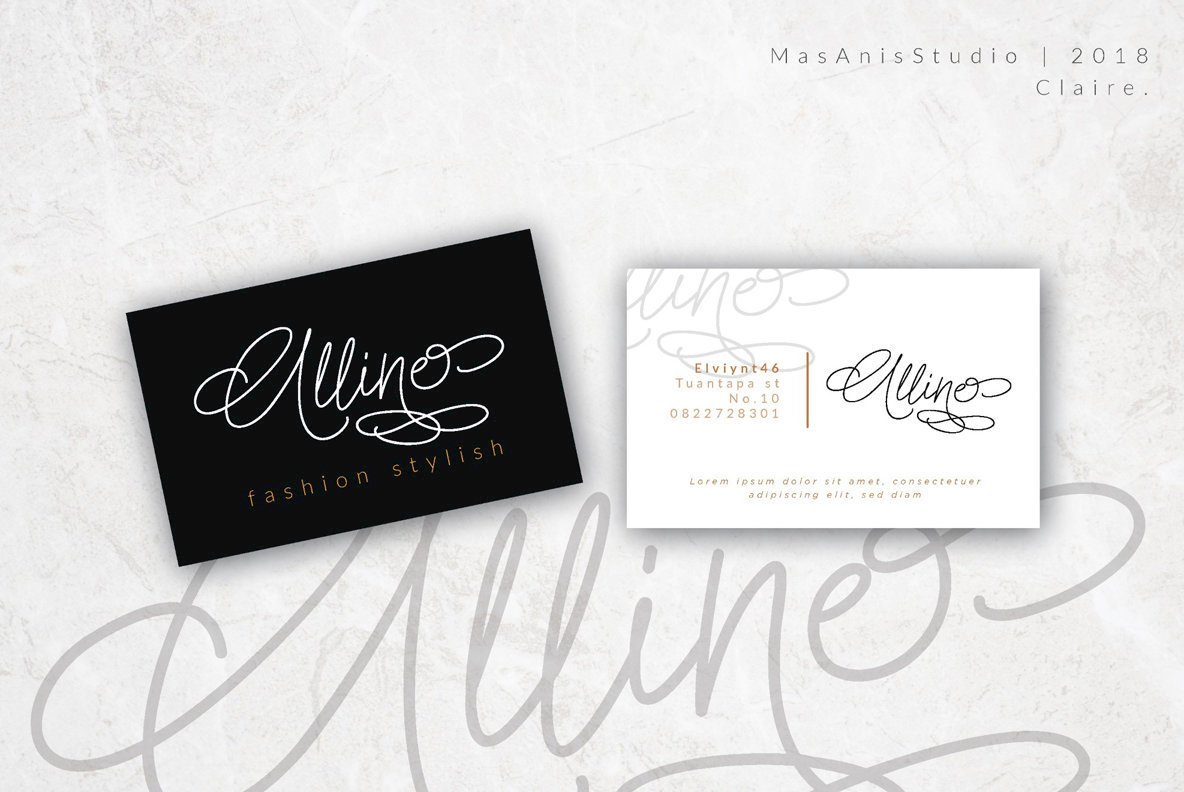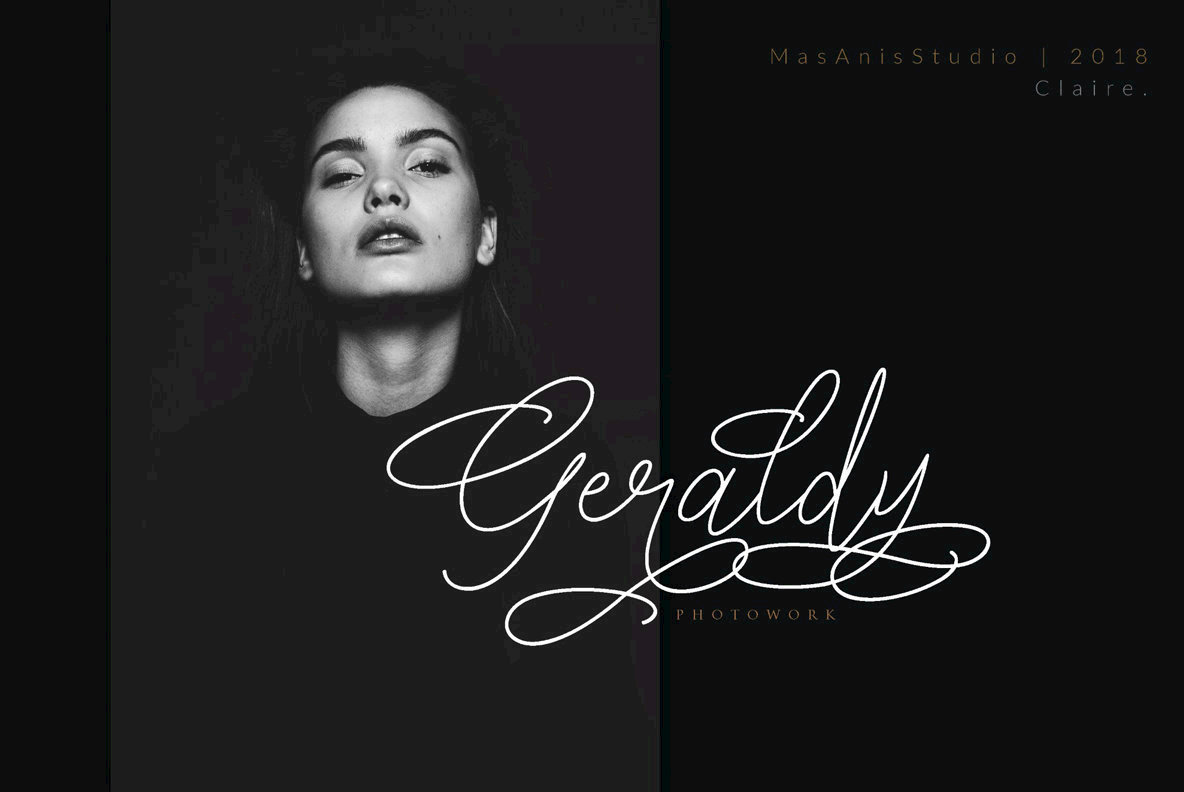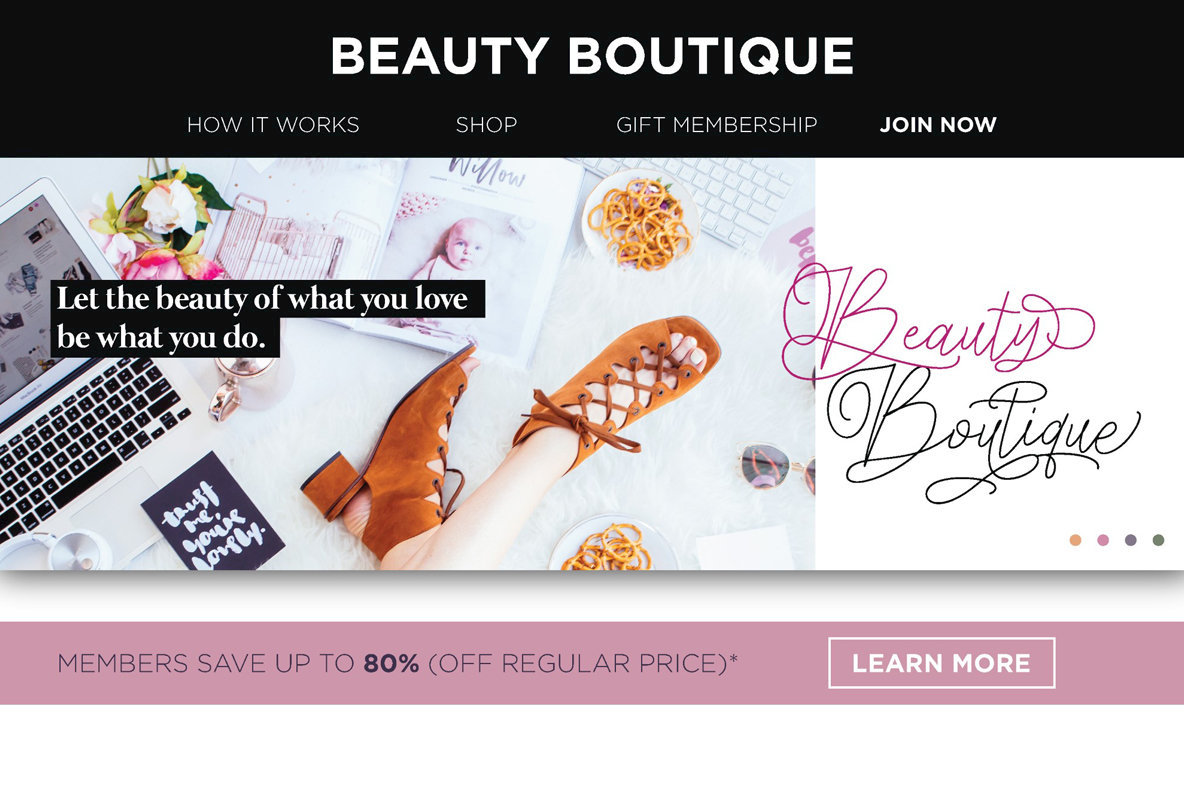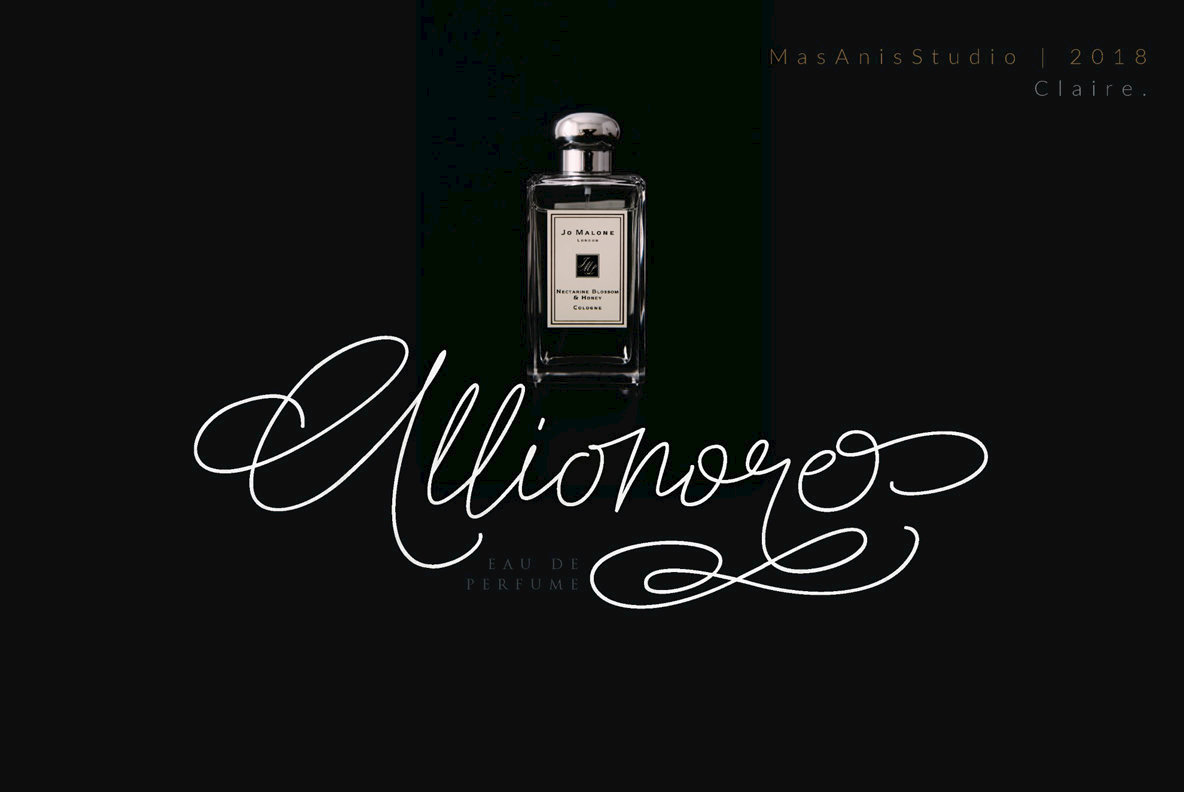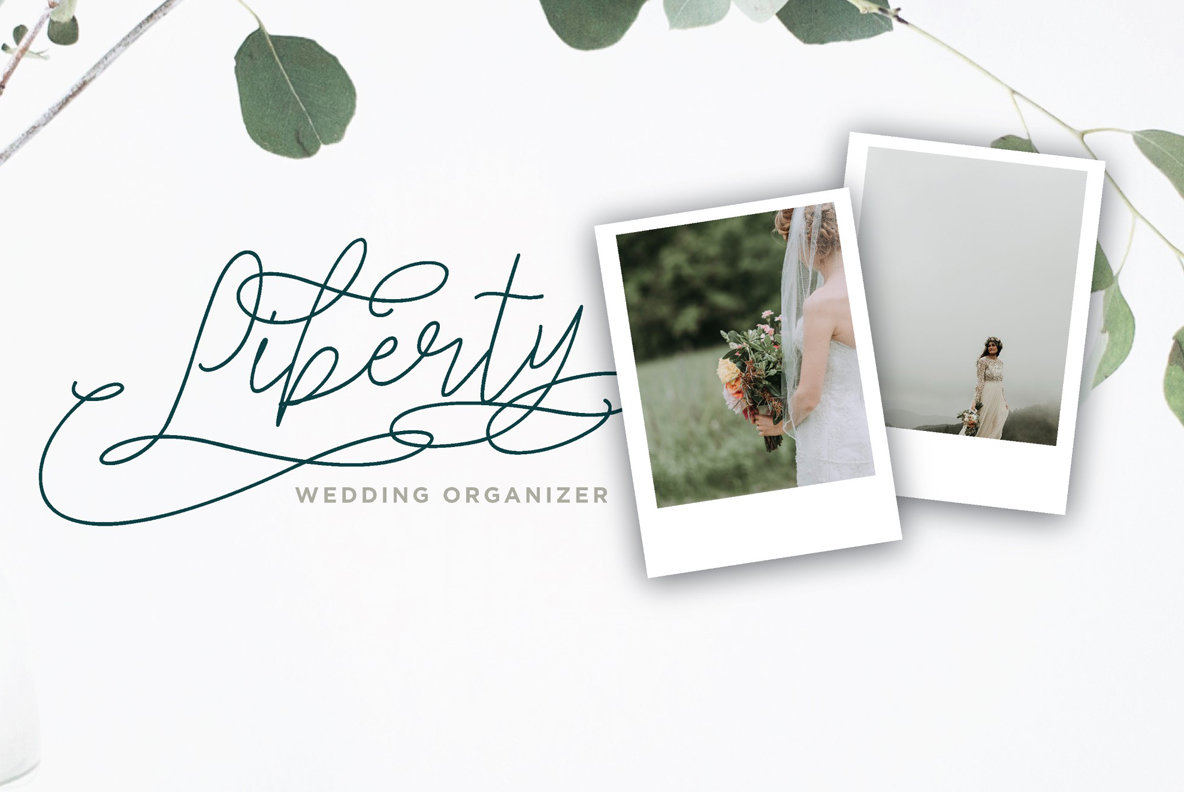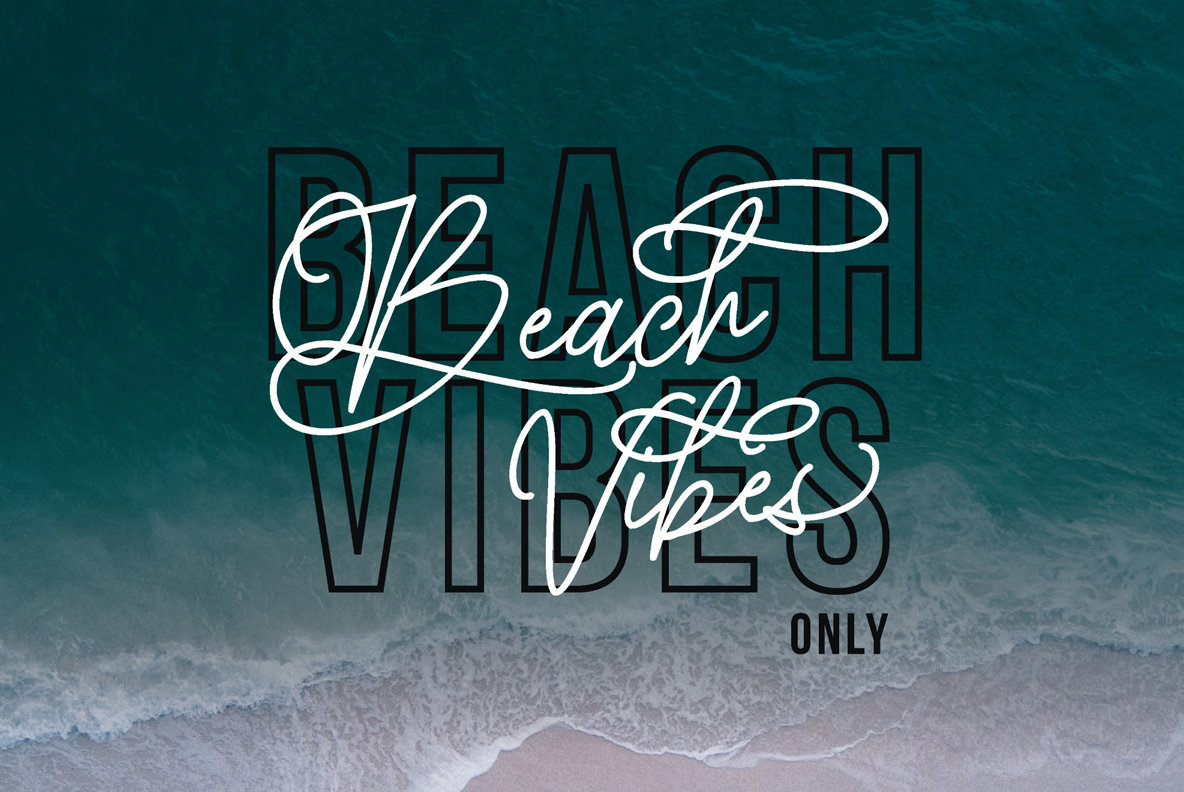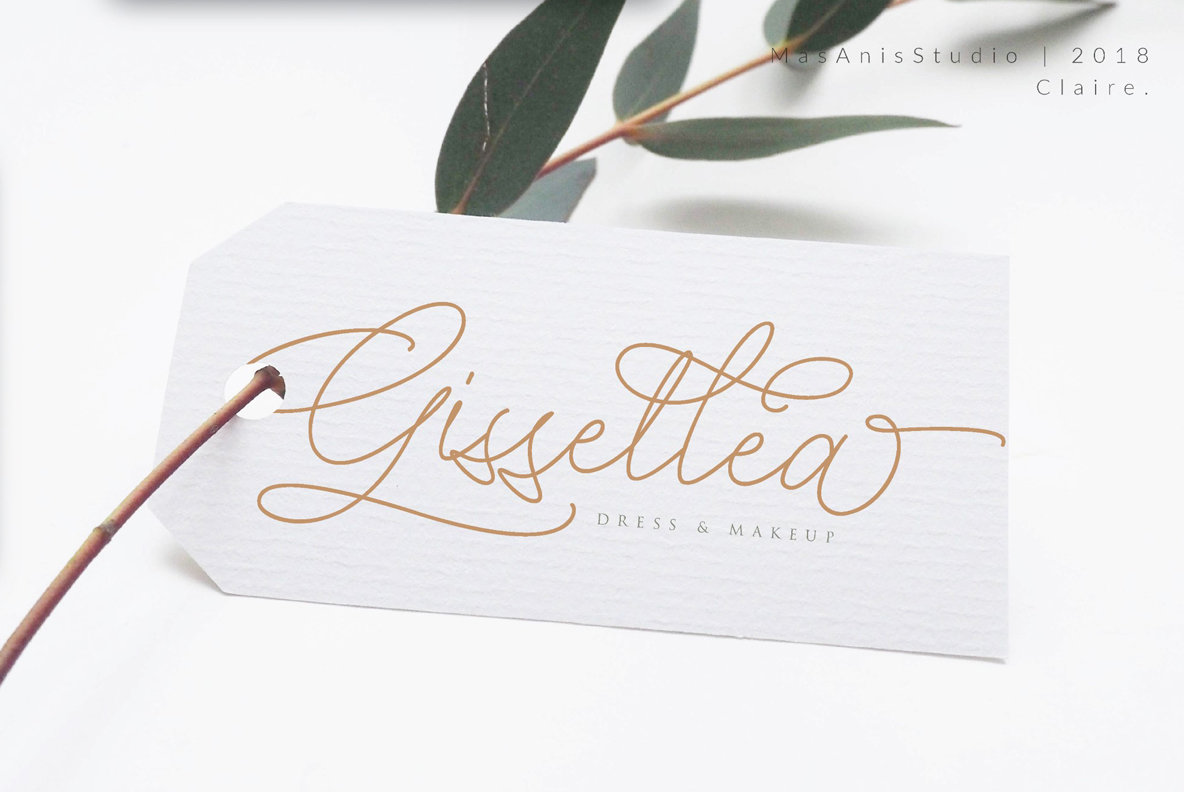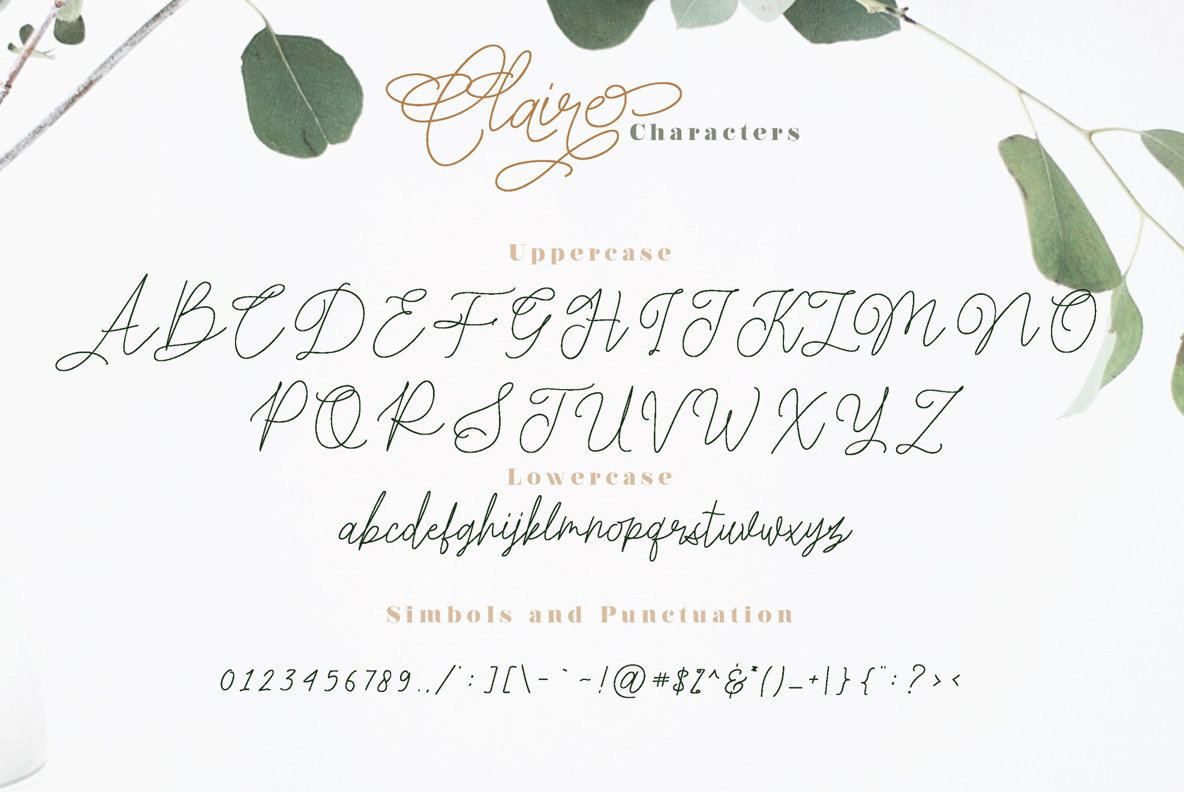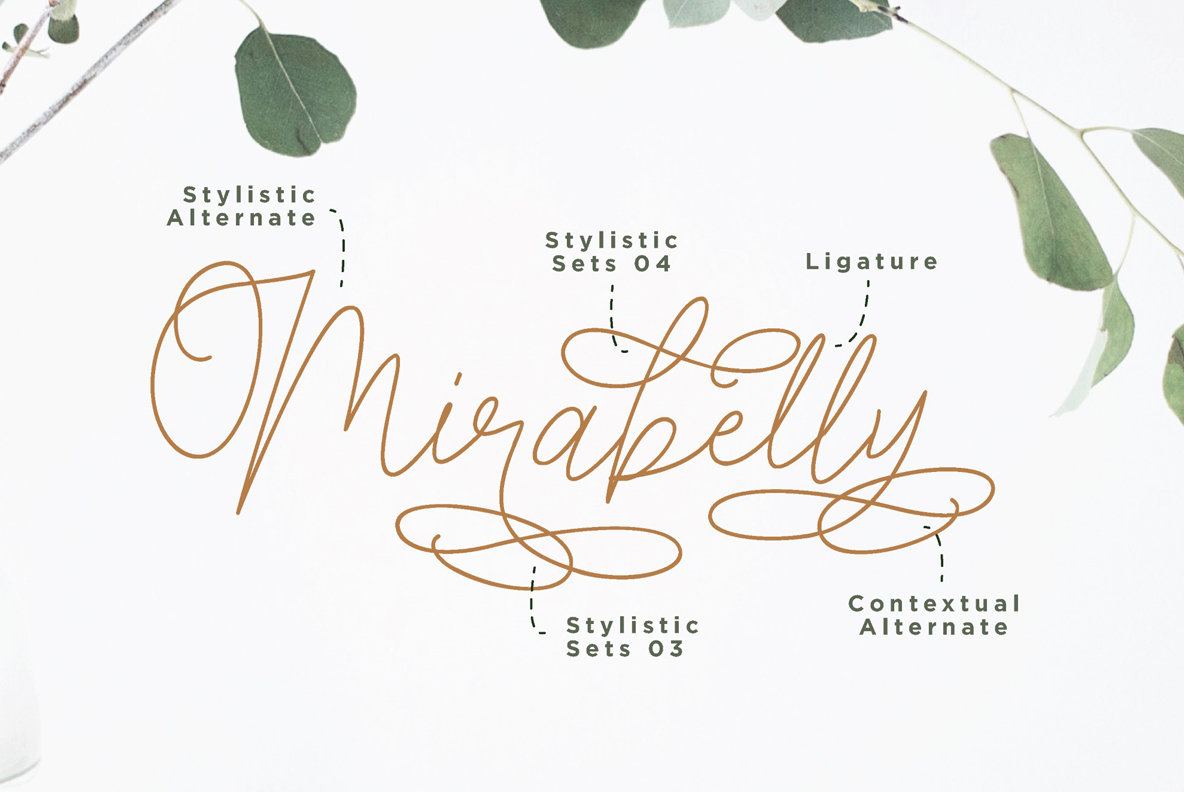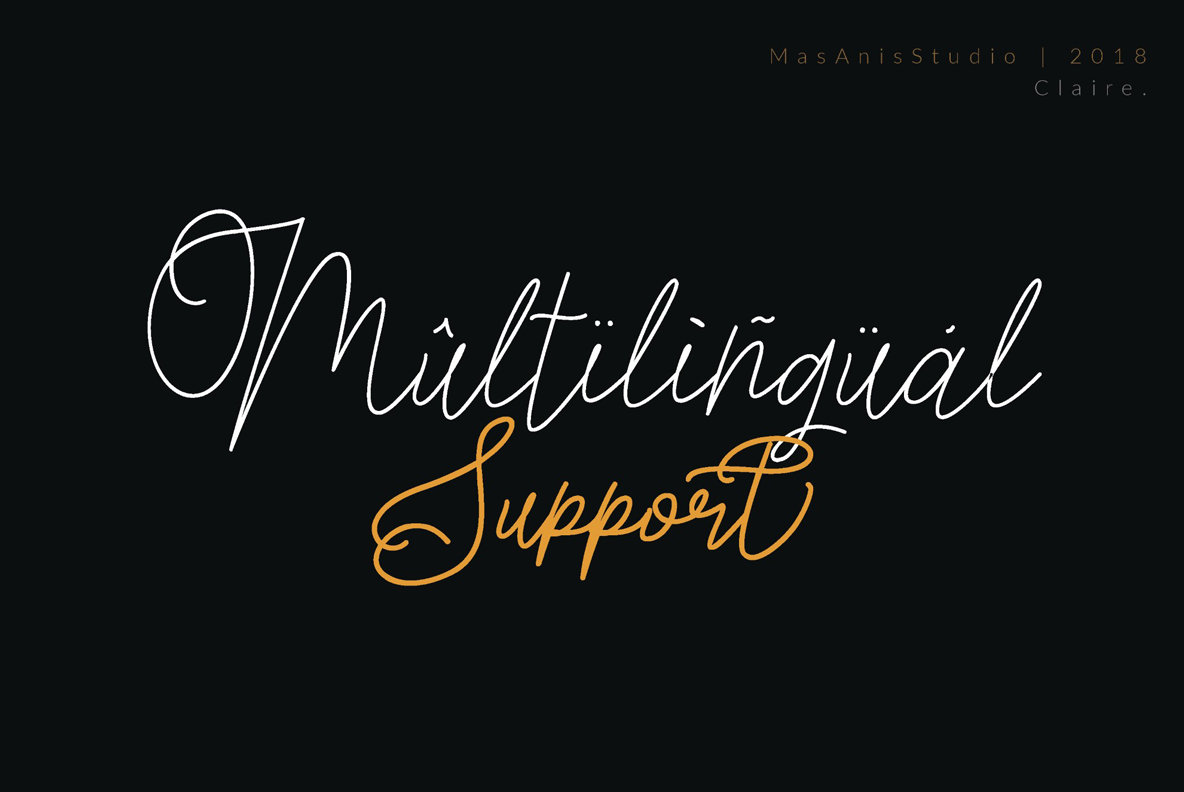
Claire Script Font
The Claire Script font combines elegance with a modern touch, making it an ideal choice for designers seeking sophistication. Featuring both beginning and ending swashes, this script offers versatility across a range of design projects.Claire Script: A Fusion of Elegance and Modernity